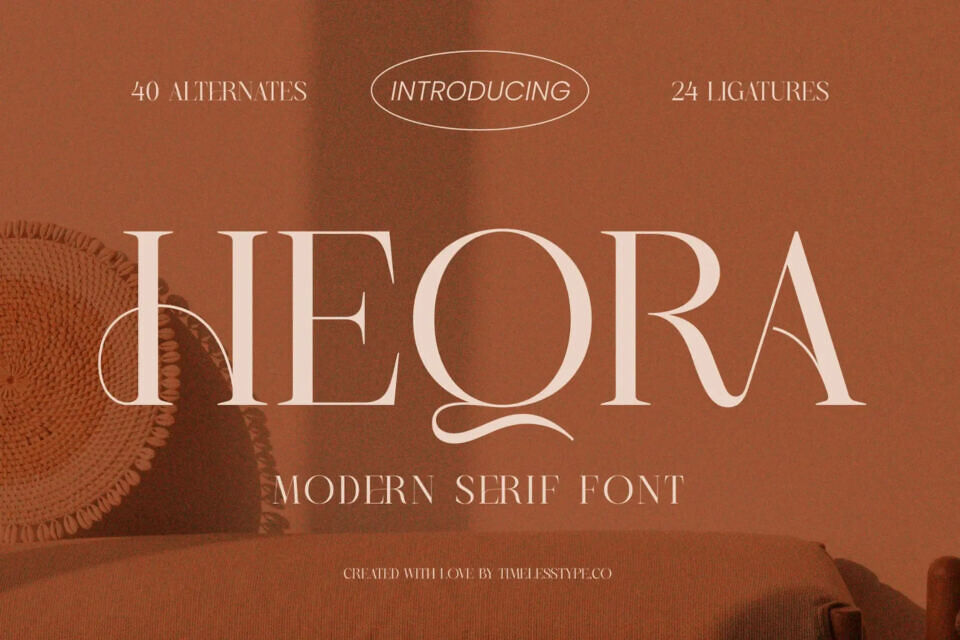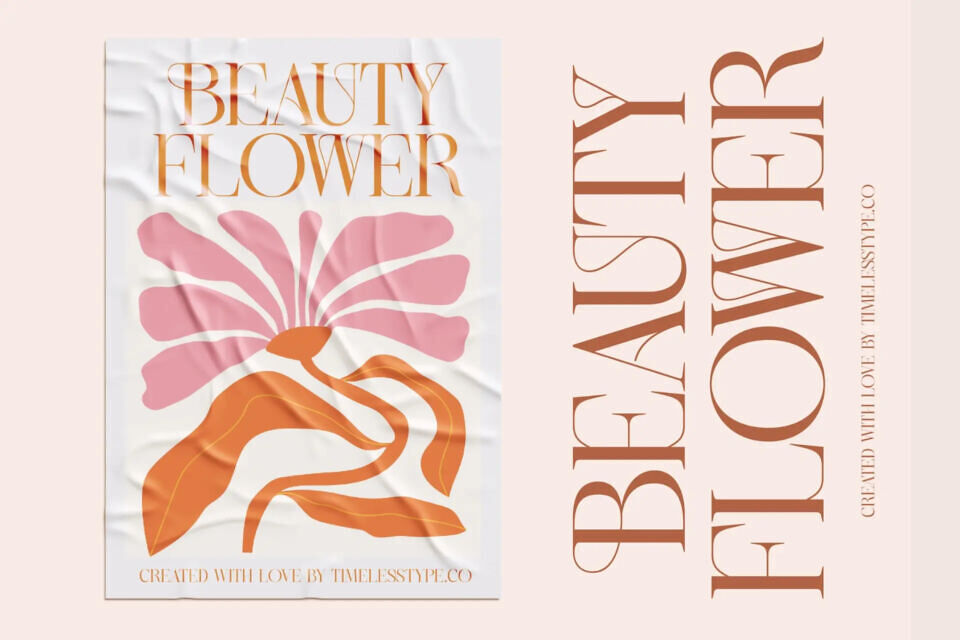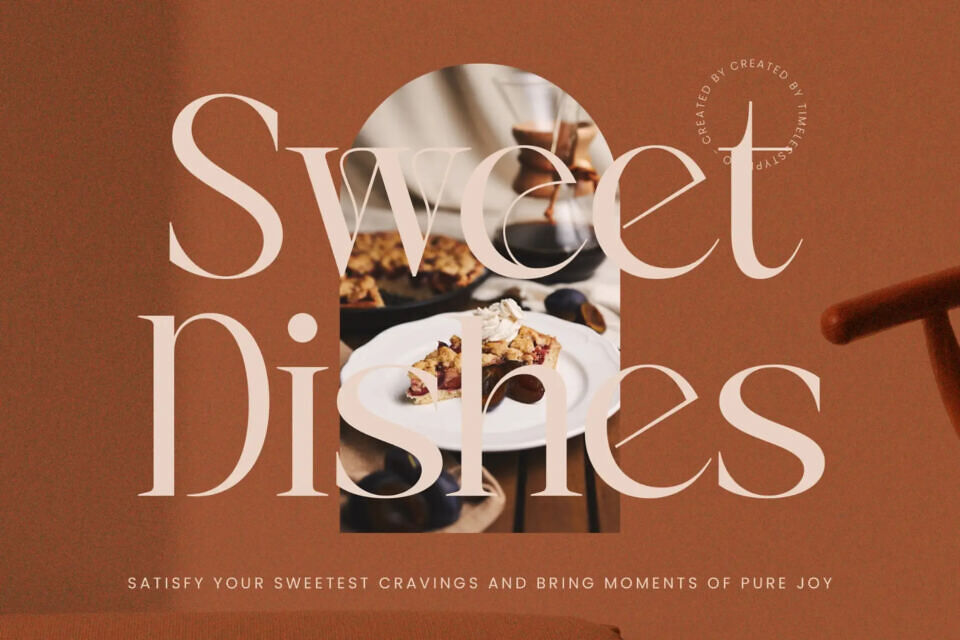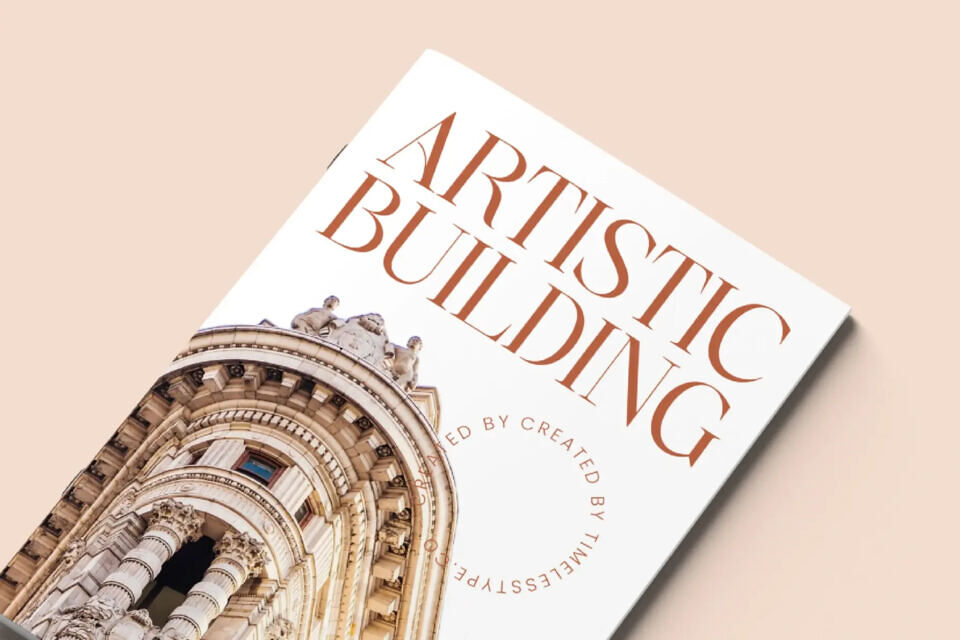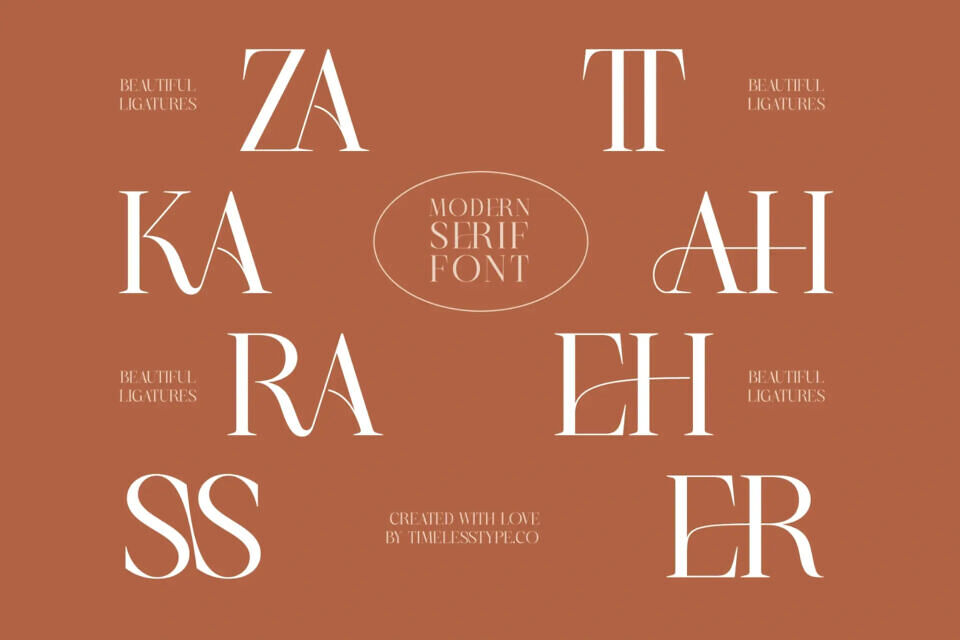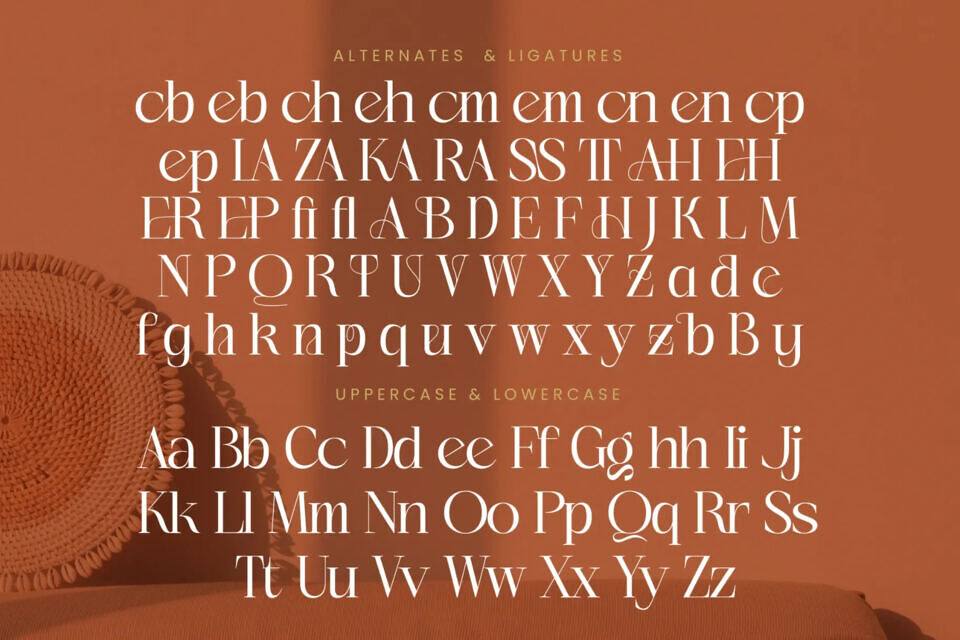
Heqra Font
Elevate your designs with unmatched sophistication and contemporary flair. Introducing Heqra, a typeface meticulously crafted to embody modern elegance and distinctive character. Its compelling blend of classic serif structure with a fresh, artistic sensibility ensures your projects capture immediate attention and leave a lasting impression. Perfect for those seeking a font that exudes both strength and refined beauty.
The delicate interplay between thick and thin lines, coupled with unique ligatures and over 40 alternates, offers unparalleled creative freedom. Heqra Font is the definitive choice for projects demanding a touch of prestige and refined aesthetic. It is absolutely perfect for luxury branding, high-end packaging, sophisticated editorial design, fashion magazines, exquisite invitations, and impactful advertising campaigns.